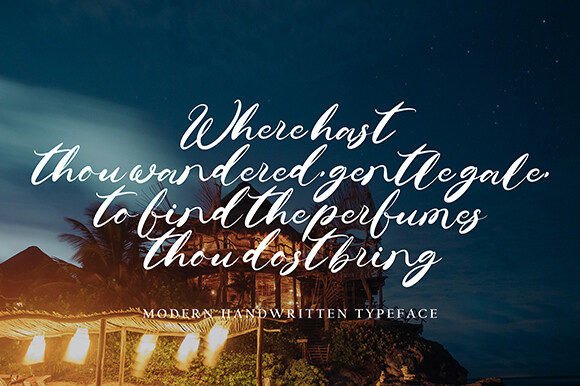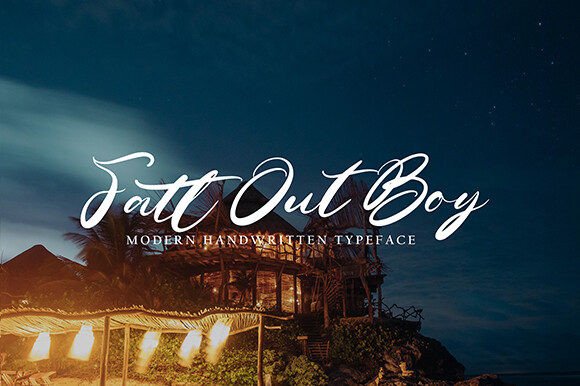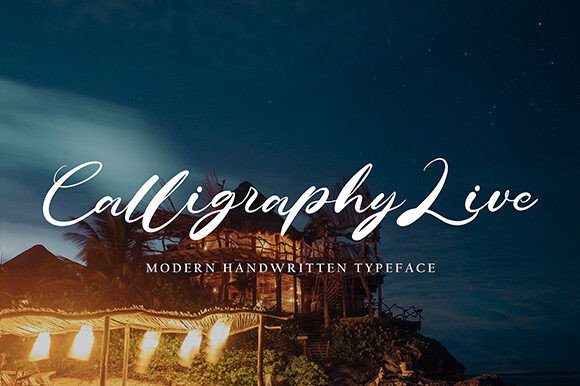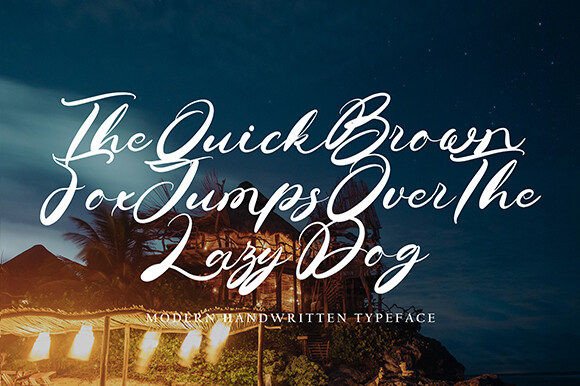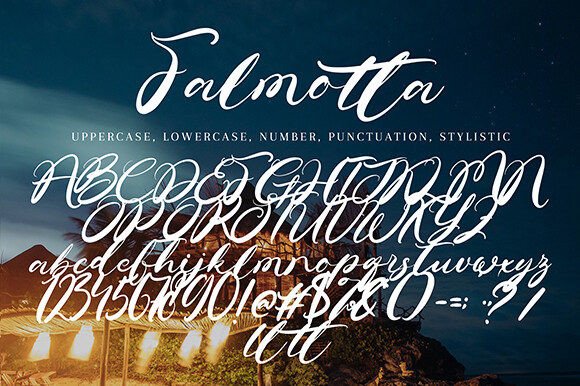
Falmotta Font: Unleash Your Creative Expression with this Bold and Dynamic Handwritten Typeface
Are you tired of using the same old fonts in your designs? Do you want to add a touch of raw energy and creativity to your projects? Look no further than the Falmotta font, a bold and dynamic handwritten typeface that’s sure to make a statement. With its expressive, untamed style, this font is perfect for designers and crafters who want to convey a sense of free-spirited creativity.
The Essence of Falmotta Font
Falmotta font is a handwritten typeface that captures the essence of messy ink strokes. Its bold and dynamic design makes it perfect for making a statement on posters, headlines, or any project where you want to add a touch of personality. The font’s expressive, untamed style gives it a raw and energetic feel that’s sure to grab attention.
Key Features of Falmotta Font
- Bold and Dynamic Design: Falmotta font is a bold and dynamic handwritten typeface that’s perfect for making a statement.
- Expressive and Untamed Style: The font’s expressive, untamed style gives it a raw and energetic feel that’s sure to grab attention.
- Perfect for Creative Projects: Falmotta font is ideal for designers and crafters who want to convey a sense of free-spirited creativity.
- Messy Ink Strokes: The font captures the essence of messy ink strokes, giving it a unique and authentic feel.
Uses of Falmotta Font
Falmotta font is a versatile typeface that can be used in a variety of creative projects. Here are some ideas to get you started:
- Posters and Flyers: Use Falmotta font to create eye-catching posters and flyers that grab attention.
- Headlines and Titles: Add a touch of personality to your headlines and titles with Falmotta font.
- Branding and Packaging: Use Falmotta font to create unique and memorable branding and packaging designs.
- Social Media Graphics: Add a touch of creativity to your social media graphics with Falmotta font.
Why Choose Falmotta Font?
There are many fonts available, but Falmotta font stands out from the crowd. Here are some reasons why you should choose Falmotta font for your next project:
- Unique and Authentic Design: Falmotta font has a unique and authentic design that’s sure to grab attention.
- Easy to Read: Despite its bold and dynamic design, Falmotta font is easy to read and understand.
- Versatile: Falmotta font can be used in a variety of creative projects, from posters and flyers to social media graphics.
- High-Quality: Falmotta font is a high-quality typeface that’s designed to deliver exceptional results.
Tips for Using Falmotta Font
Here are some tips for using Falmotta font in your designs:
- Use it Boldly: Falmotta font is a bold and dynamic typeface, so use it boldly to make a statement.
- Experiment with Colors: Try out different colors to add an extra touch of personality to your designs.
- Pair it with Other Fonts: Falmotta font can be paired with other fonts to create a unique and memorable design.
- Keep it Simple: Don’t overcomplicate your design – keep it simple and let Falmotta font do the talking.
Falmotta font is a bold and dynamic handwritten typeface that’s perfect for designers and crafters who want to convey a sense of free-spirited creativity. With its expressive, untamed style, this font adds a raw and energetic touch to your designs. Whether you’re creating posters, headlines, or social media graphics, Falmotta font is sure to make a statement. So why wait? Download Falmotta font today and unleash your creative expression!